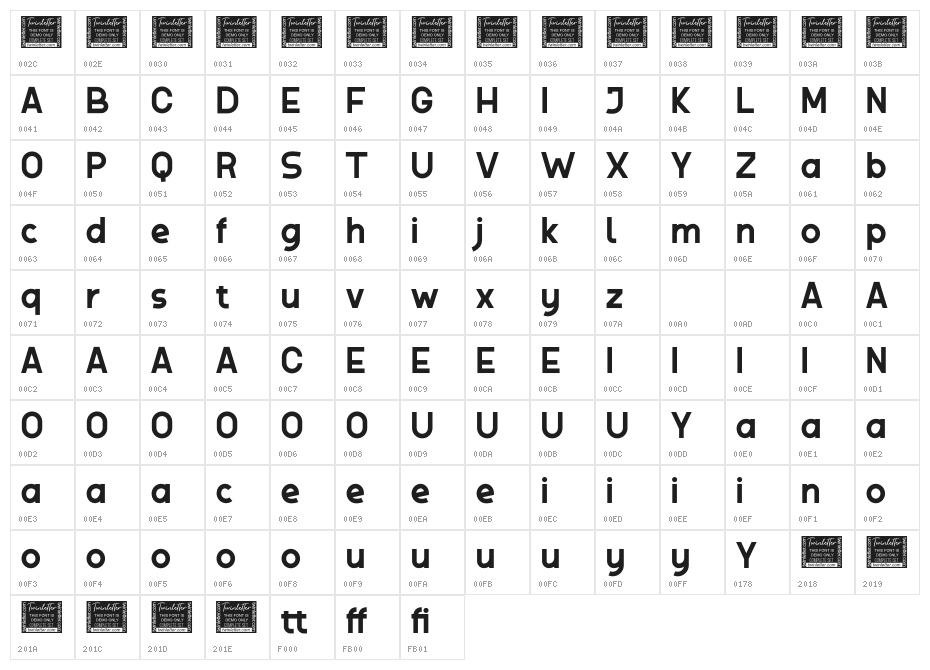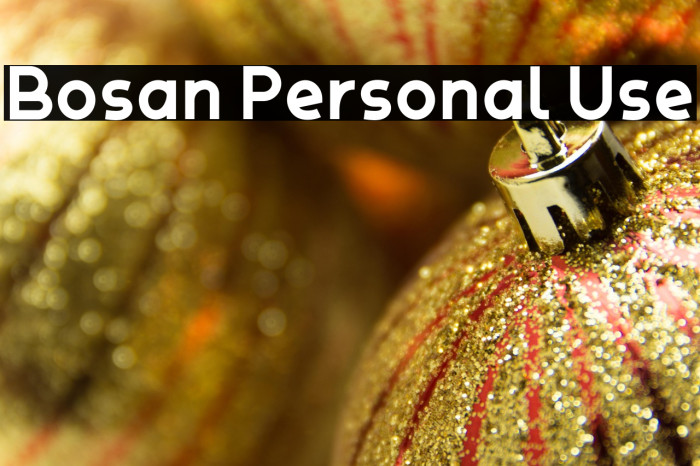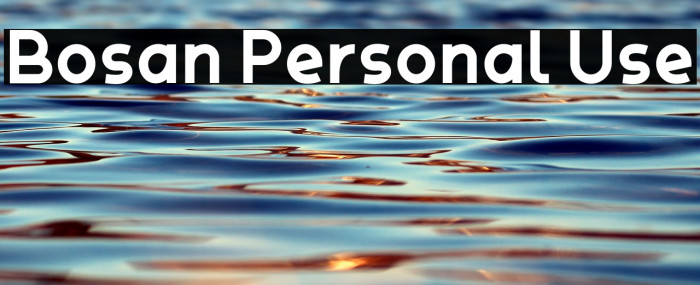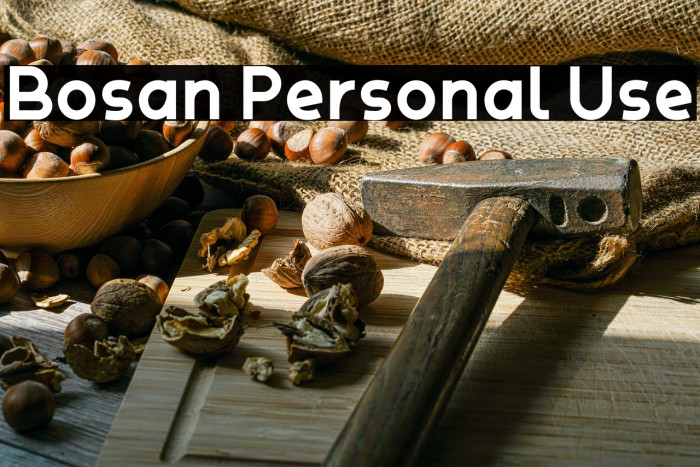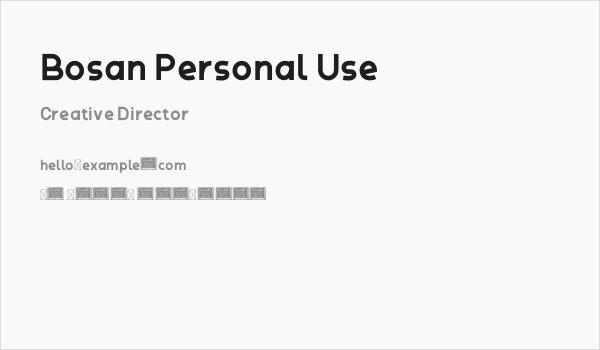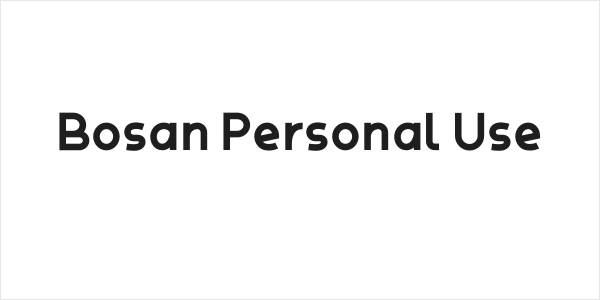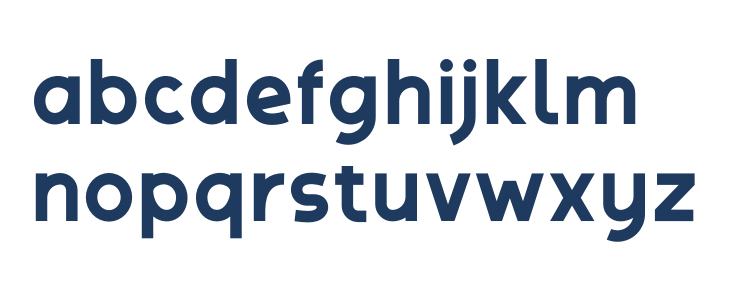
Bosan Personal Use Font
Bosan Personal Use Description
This typeface features a clean and modern design with a geometric structure. The characters are bold and evenly weighted, providing a strong visual impact. The uppercase and lowercase letters maintain a consistent style, with rounded edges that soften the overall appearance. The numerals and special characters are designed to match the letterforms, ensuring a cohesive look across all text. The font's simplicity and clarity make it highly legible, suitable for a variety of applications.
| Proposed Projects | Ideal for branding, headlines, posters, and digital media where a modern and impactful look is desired. |